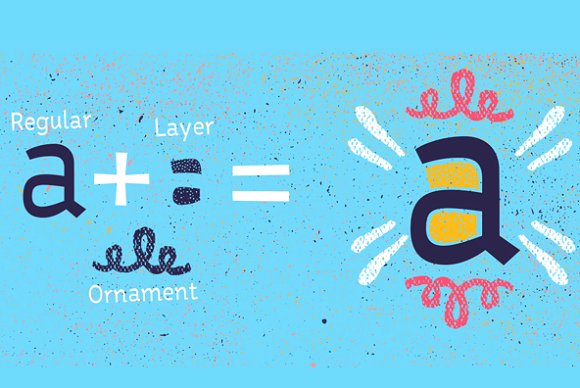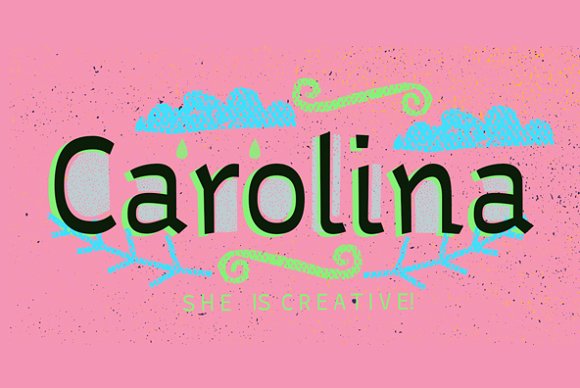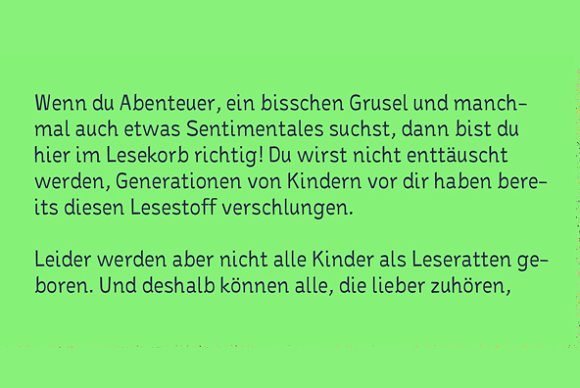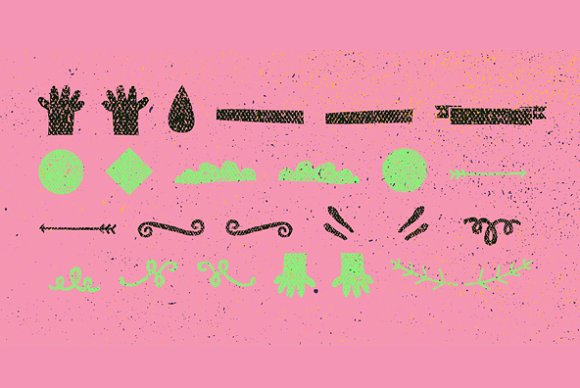
Unlock Creative Possibilities with Fedora Pro Font
In the world of typography, a font can be more than just a means to convey text – it can be an artistic statement, a design element, and a reflection of one’s creativity. For designers, crafters, and anyone looking to add a unique touch to their projects, Fedora Pro Font emerges as a game-changer. This innovative font is designed to layer, allowing users to add intricate ornaments to characters, thereby elevating titles and designs to a whole new level of aesthetic appeal.
The Unique Selling Point of Fedora Pro Font
What sets Fedora Pro apart from traditional fonts is its layered design capability. Unlike standard fonts that offer a single, uniform look, Fedora Pro allows for the combination of multiple layers. This means you can add elaborate ornaments and flourishes to your text, giving it a distinctive and eye-catching appearance. Whether you’re working on a logo, a poster, a craft project, or digital art, Fedora Pro provides the tools to make your work stand out.
Easy to Use, Powerful Results
One of the key benefits of Fedora Pro Font is its ease of use. Despite its advanced capabilities, the font is designed to be accessible to creatives of all skill levels. The layers can be easily combined and manipulated, allowing for a high degree of customization without requiring extensive design experience. This user-friendly approach makes Fedora Pro an excellent choice for both professionals and hobbyists looking to enhance their projects with unique typography.
Applications of Fedora Pro Font
The versatility of Fedora Pro Font means it can be used in a wide range of applications. Here are a few ideas to get you started:
• Graphic Design: Add a touch of elegance to your brochures, flyers, and posters with custom ornaments and layered text.
• Crafting: Use Fedora Pro to create personalized cards, invitations, and DIY projects with a professional finish.
• Digital Art: Incorporate layered typography into your digital artworks, blogs, and social media posts to capture attention and express your creativity.
• Branding: Develop a unique brand identity with custom logos and wordmarks that leverage the distinctive layered look of Fedora Pro.
Technical Insights into Fedora Pro
Fedora Pro Font utilizes advanced typographic techniques to enable its layering capabilities. By including multiple font files designed to work together, users can select and combine different layers to achieve the desired effect. This could involve adding decorative tops, tails, or frames to text, allowing for a bespoke look that is both time-efficient and visually impactful.
Fedora Pro Font is a powerful tool for anyone looking to elevate their design work with unique and captivating typography. Its layered design capability, ease of use, and wide range of applications make it an invaluable resource for designers, crafters, and creatives. By incorporating Fedora Pro into your projects, you can add a special effect that sets your work apart and leaves a lasting impression on your audience.
Whether you’re a seasoned designer or just starting out, Fedora Pro Font invites you to explore new creative possibilities and push the boundaries of what’s possible with typography. So why settle for ordinary when you can create something extraordinary with Fedora Pro?